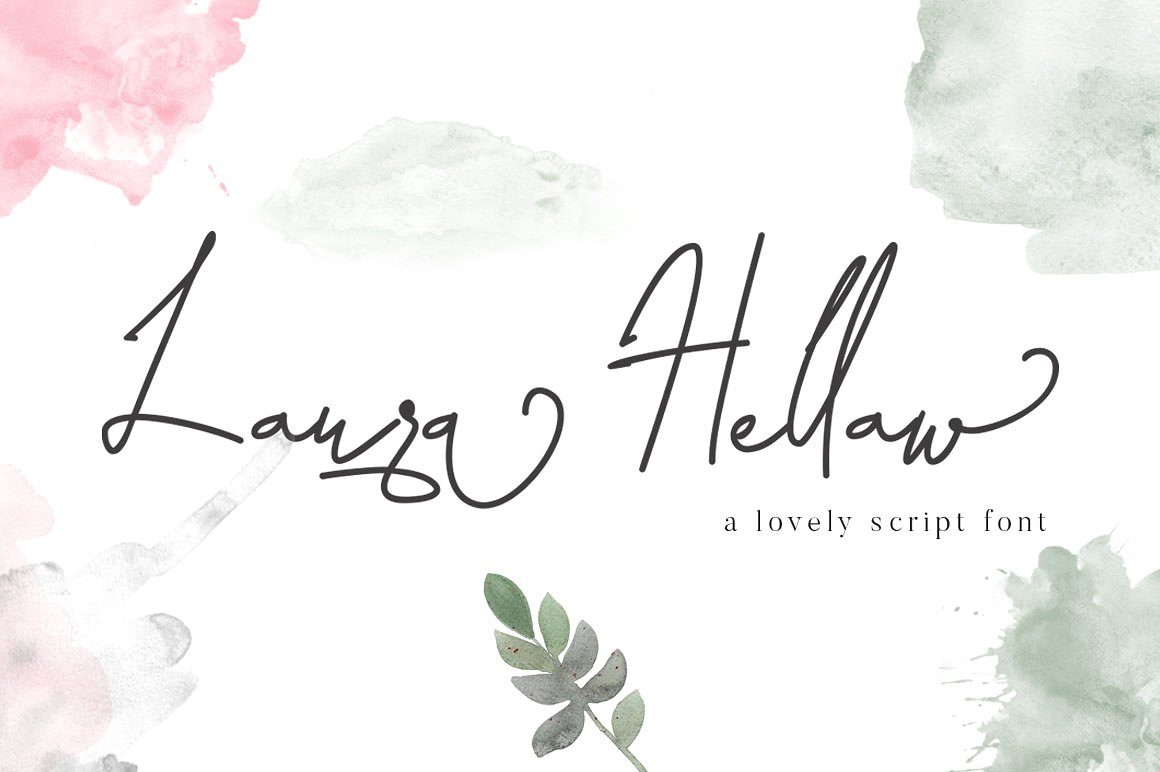
Laura Hellaw Script
Laura Hellaw Script Font
Laura Hellaw a lovely script font, This is perfect for invitations, signatures, blogs, social media, business cards, product brands, etc.
Creative Signature has style standard, Alternate Stylistic and ligatures. and includes uppercase and lowercase letters, numbers and punctuation serta alternate